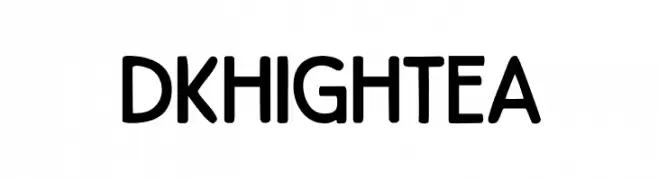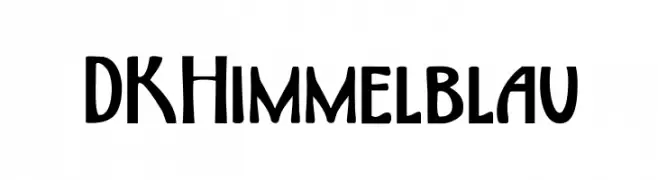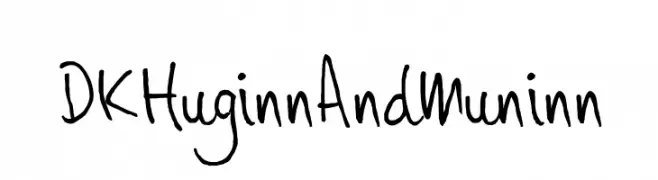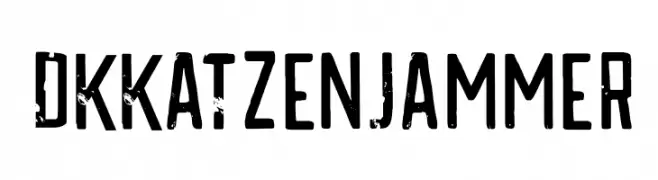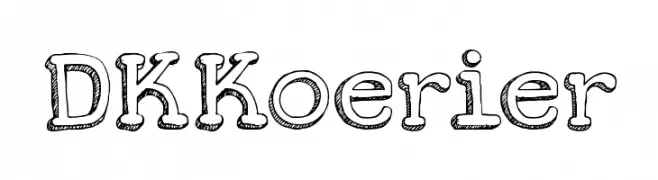
• DKHighTea
( Fonts by David Kerkhoff - www.hanodedphotography.com )
A playful, rounded font with a bold and friendly appearance.
• DKHimmelblau
( Fonts by David Kerkhoff - www.hanodedphotography.com )
A bold, playful font with a hand-drawn, whimsical style.
• DKHoneyDew
( Fonts by Hanoded )
A playful, hand-drawn font with a whimsical and organic style.
• DKHuginnAndMuninn
( Fonts by David Kerkhoff - www.hanodedphotography.com )
A playful, casual handwritten font with irregular strokes and a lively appearance.
• DKInkyFingers
( Fonts by David Kerkhoff - www.hanodedphotography.com )
A bold, hand-painted style font with dynamic, irregular strokes.
• DKIshtar
( Fonts by David Kerkhoff - www.hanodedphotography.com )
A bold, hand-drawn font with an expressive and dynamic style.
• DKKatzenjammer
( Fonts by Hanoded )
A bold, distressed font with a vintage, grunge aesthetic and playful cat icons.
• DKKoerier
• DKKoshatnik
• DKKubikajiri
( Fonts by David Kerkhoff - www.hanodedphotography.com )
A chaotic, ink-splattered font with a raw, artistic style.